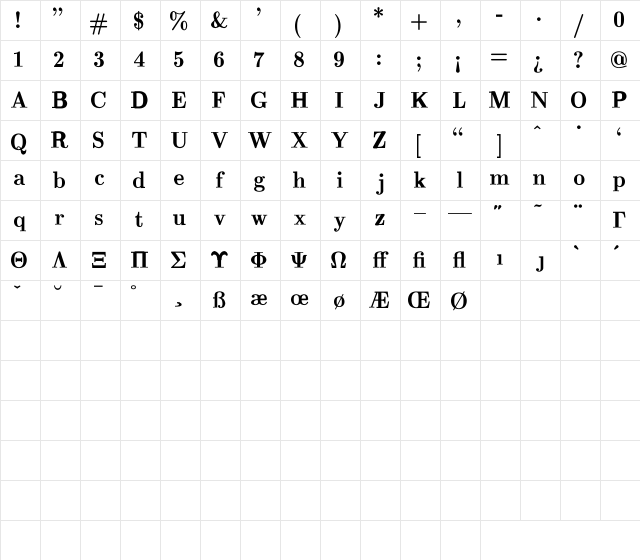
CM_Roman Bold Free Font
CM_Roman Bold
Design Context for CM_Roman
CM_Roman is a composed and adaptable typeface that performs quietly and consistently across a wide range of design contexts. Its bold stroke weight gives it real presence on the page.